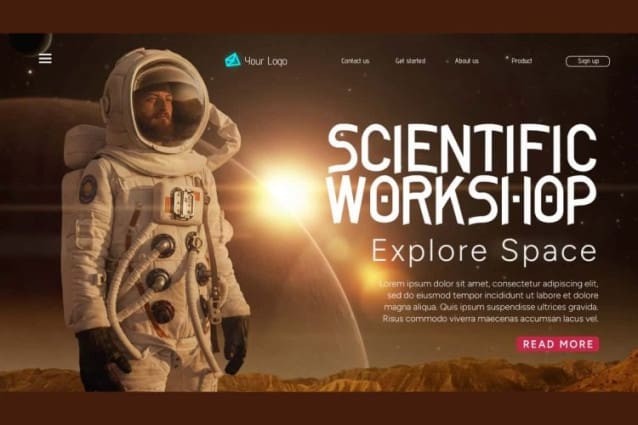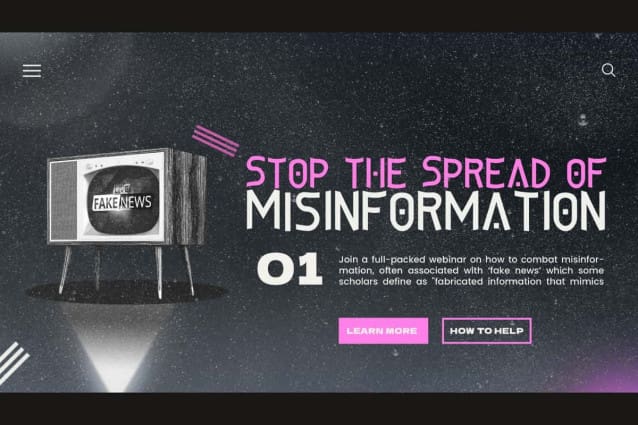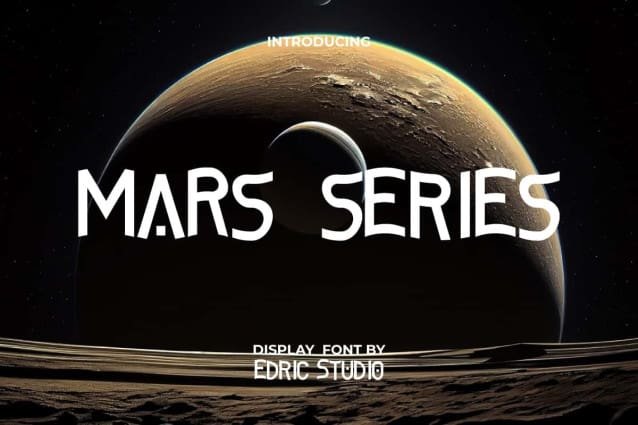
Mars Series Font
Mars Series Font is a creative outer space display font with special appearance and touch of vintage gaming. It is a bit retro but still made modern, each letterform is made special to be a favorite and make your design stand out. It will be perfect for branding logo, heading, packaging designs, screen printed designs, tags, titles, websites, or any other design projects.
Mars Series Font has a complete set of fonts with ALL CAPITAL LETTERS for both Upper and Lower Case, Numbers, Punctuation and Symbols. This retro futuristic typeface will be perfect for accessories or merchandise, cafes, clothing brand, event organizer, fashion, graphic design, printing, publishing, sci-fi movie, sportswear, or anything else.